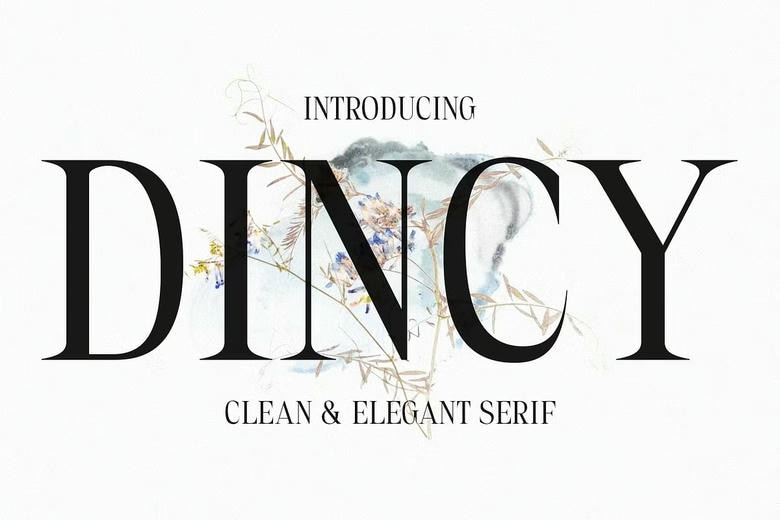
Dincy Font
Dincy Font – A Novel Method to Toored Modern Script Typo Graphy. Crisp Modernity Dincy reflects sophistication with its high contrasts round-ended serif design. All the letters oozing modern elegance, which may be wanted when working on posh tasks. Modern Serif Typography Dincy is designed with clean, minimalist lines and a modern serif feel.
This gives it a professional look and feel and blends in very well with any layout it forms part of. It’s versatile because of the elegant vibes Vibes Dincy 3 has from the picture above The design makes it suitable for various applications. Whether for editorial designs such as layouts or branding related projects, it adds a sophisticated look to its modern serifs, and possess an eternal appeal.
Successfully charming Dincy does not impose but rather simplify while being charmingly elegant. It has high contrast and highly contemporary look; it is very usable for those designers who are looking for typeface with some intrigue and style. Modern Elegance Dincy is a quintessence of modern elegant serif typeface.
Due to the high contrast and the simplicity it brings into any project, you get that classic look that can be reflected across any field of graphic design. Stay connected with Dincy and be captivated with the sophistication of your designs for your projects.
Dincy Serif Font